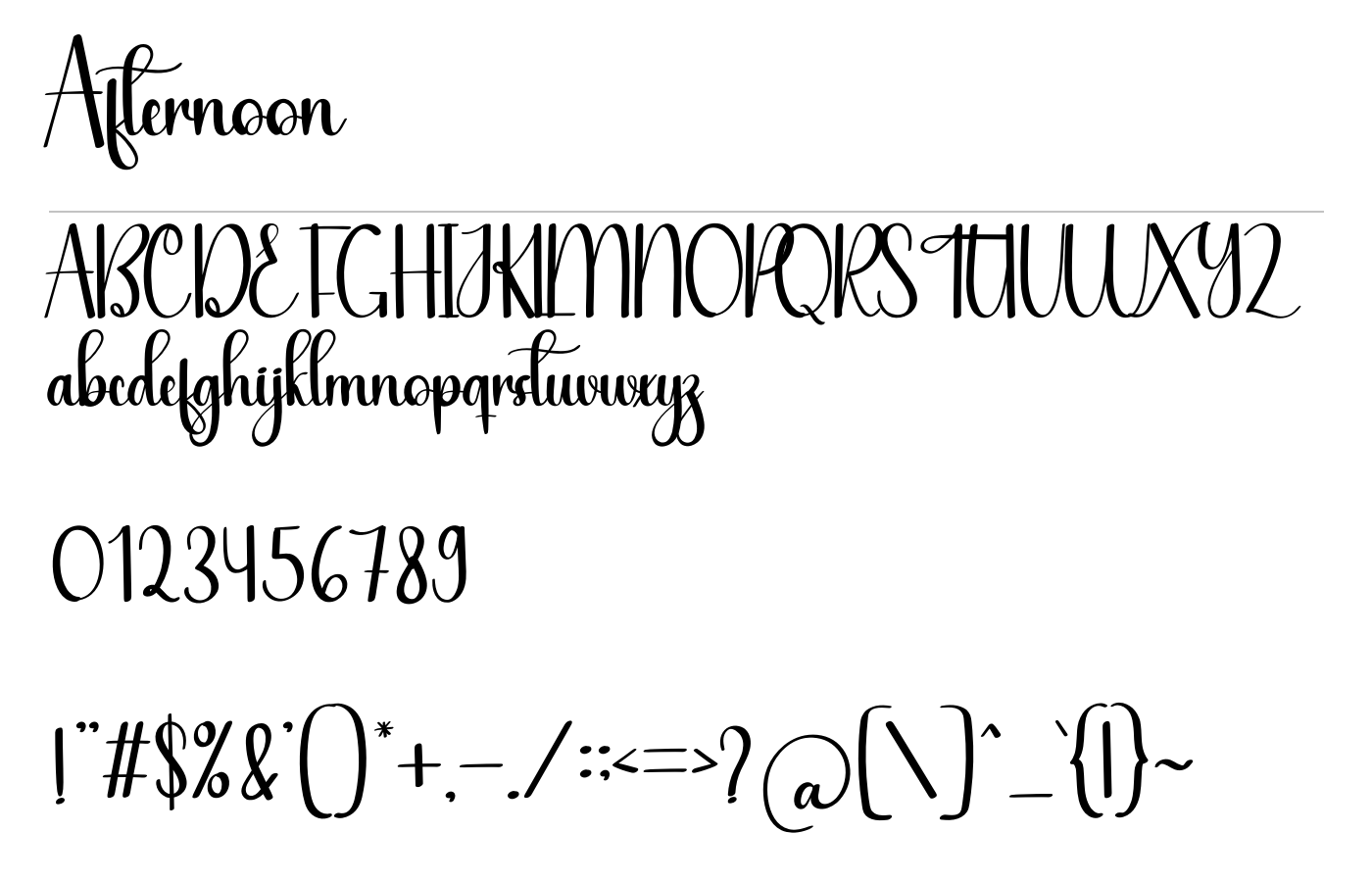
Afternoon is a playful and elegant script font characterized by its tall, slender letterforms and lively, hand-drawn style. With its delicate loops and swashes, it brings a charming, personal touch that works beautifully for creative branding, invitations, and stylish headlines. This font’s unique combination of refined sophistication and casual flair makes it ideal for projects seeking a friendly yet graceful vibe.
Afternoon Font